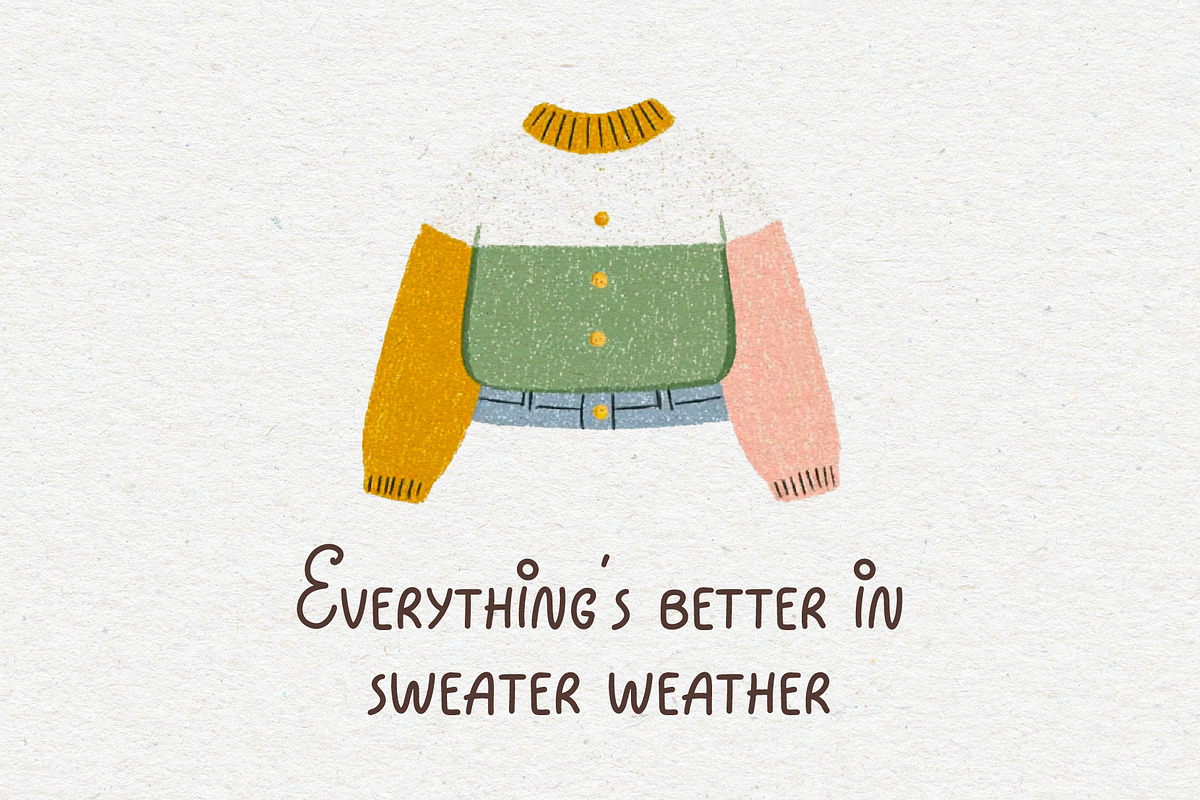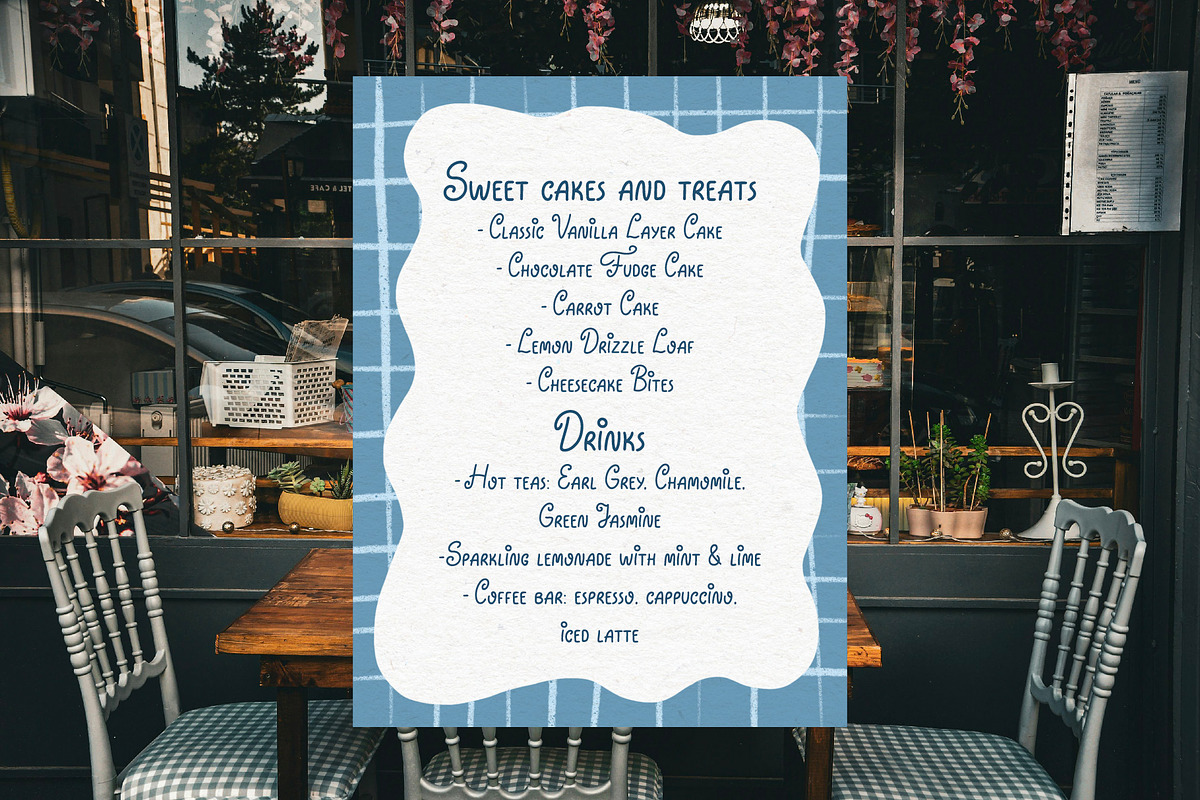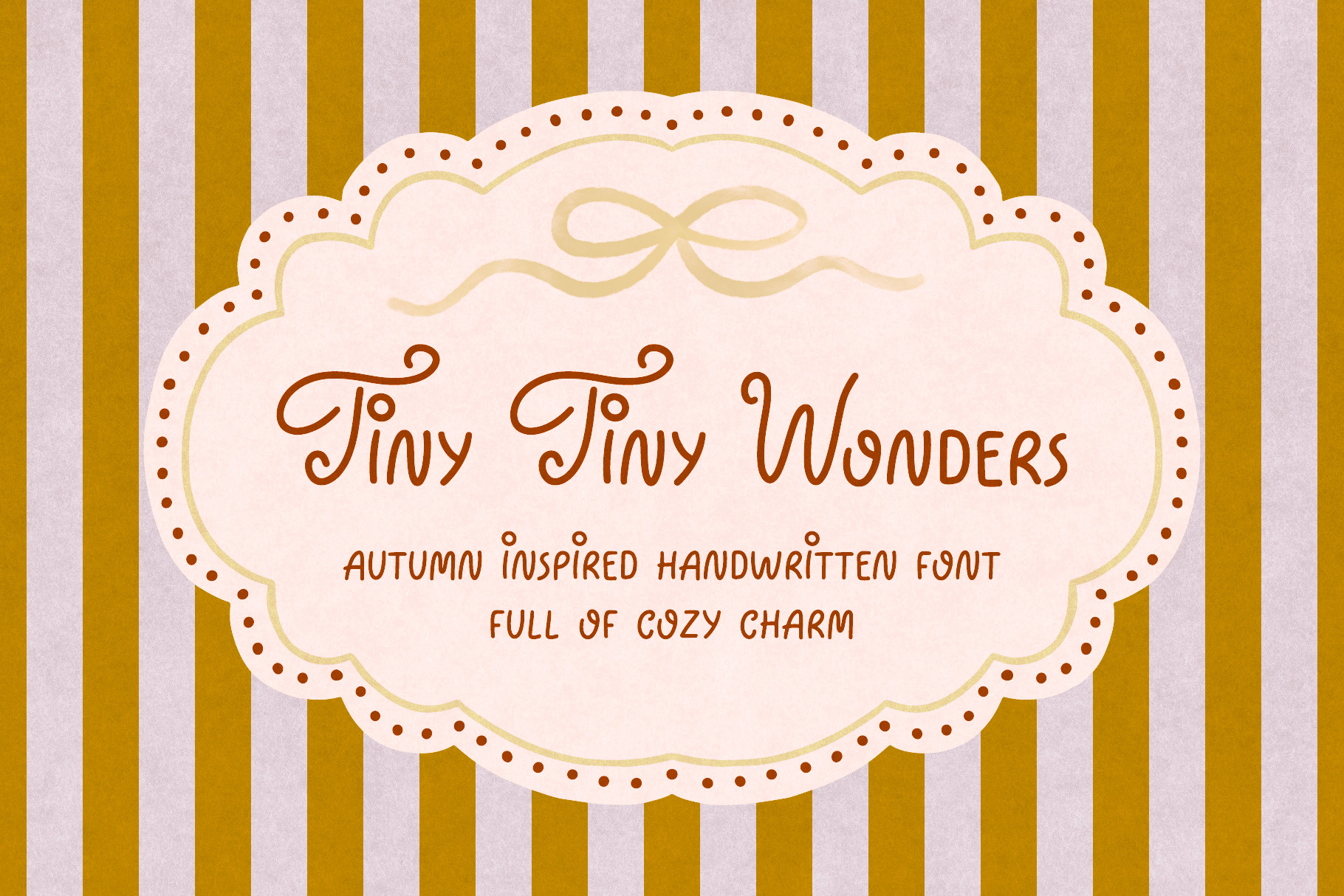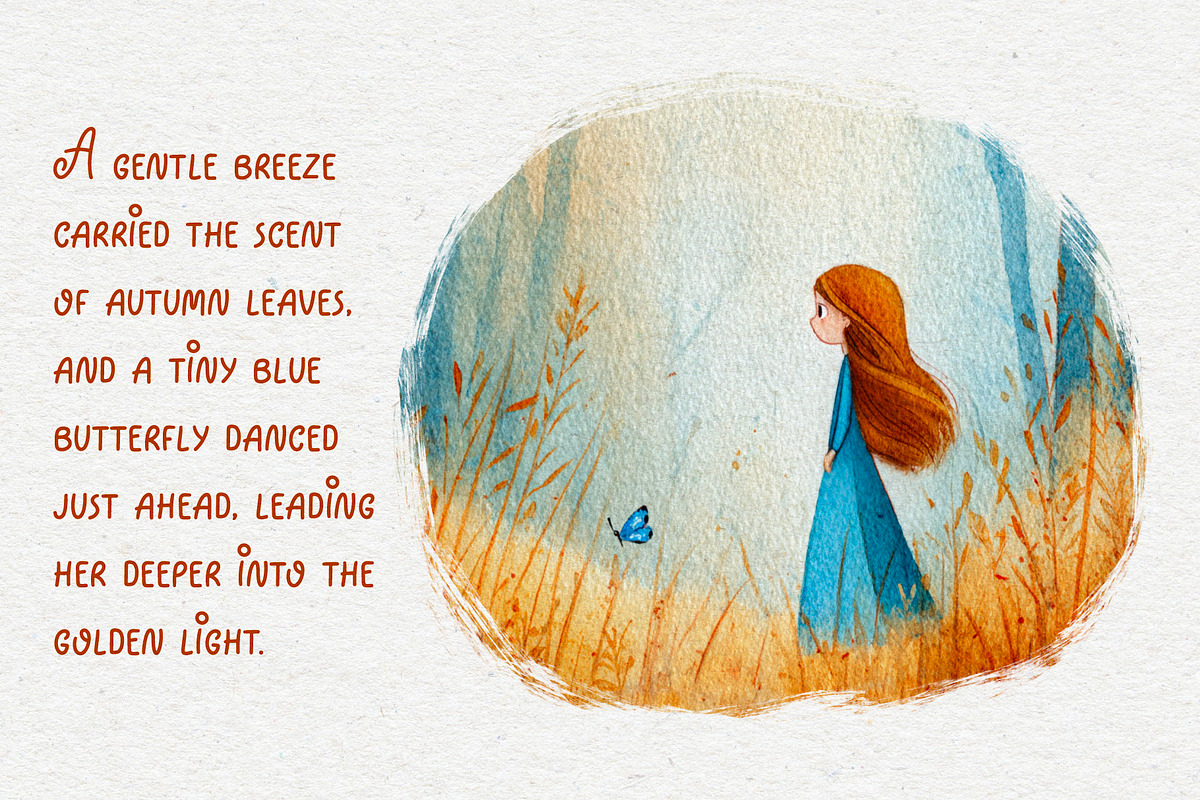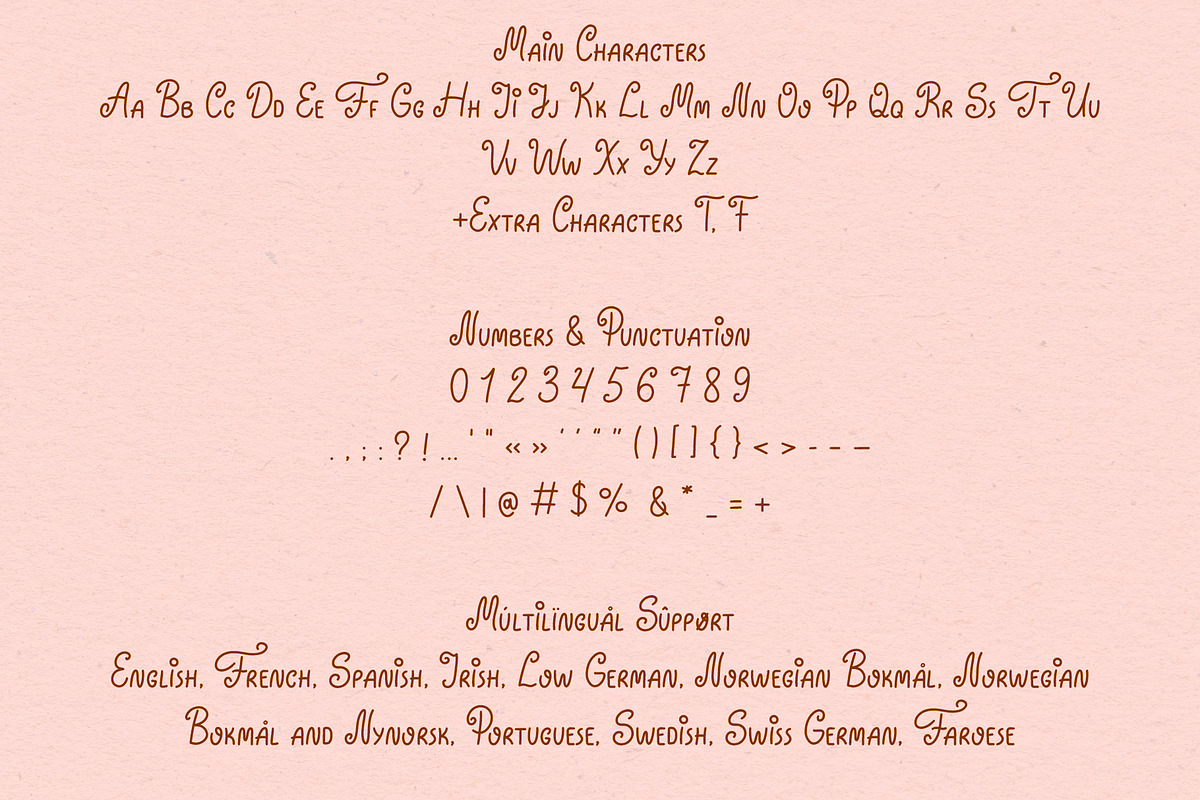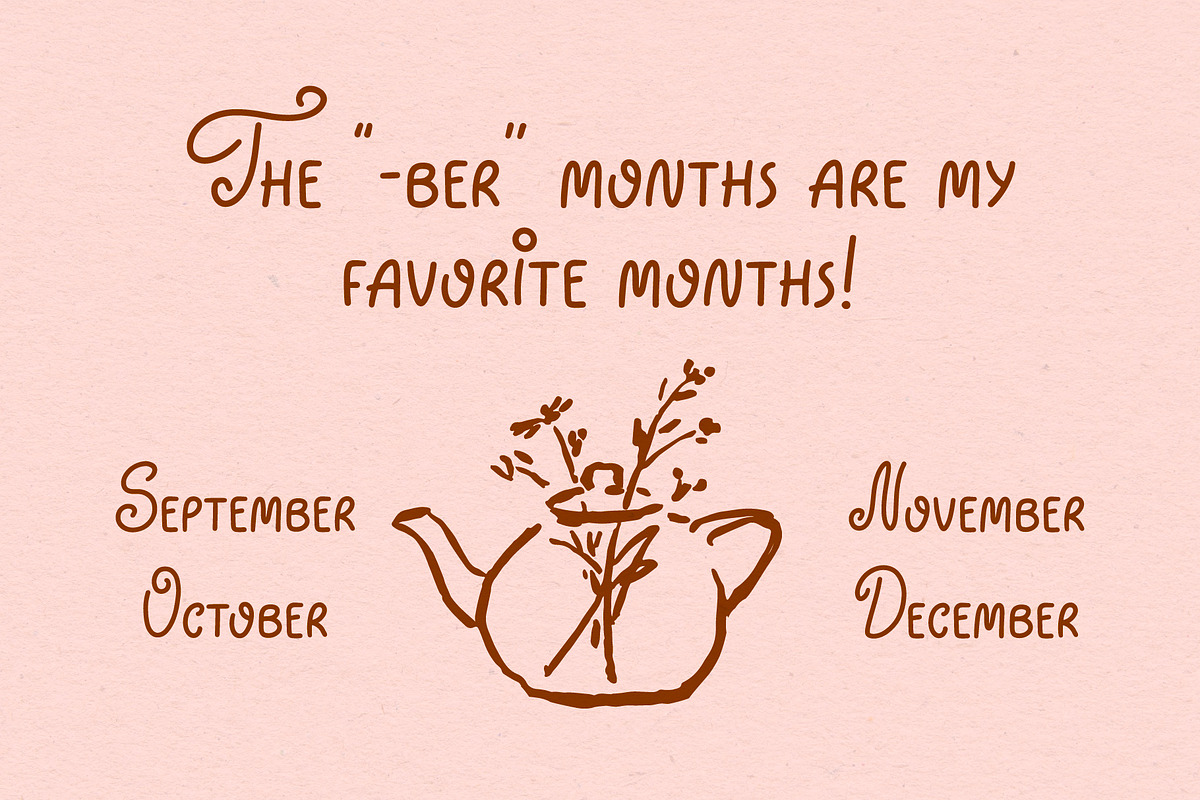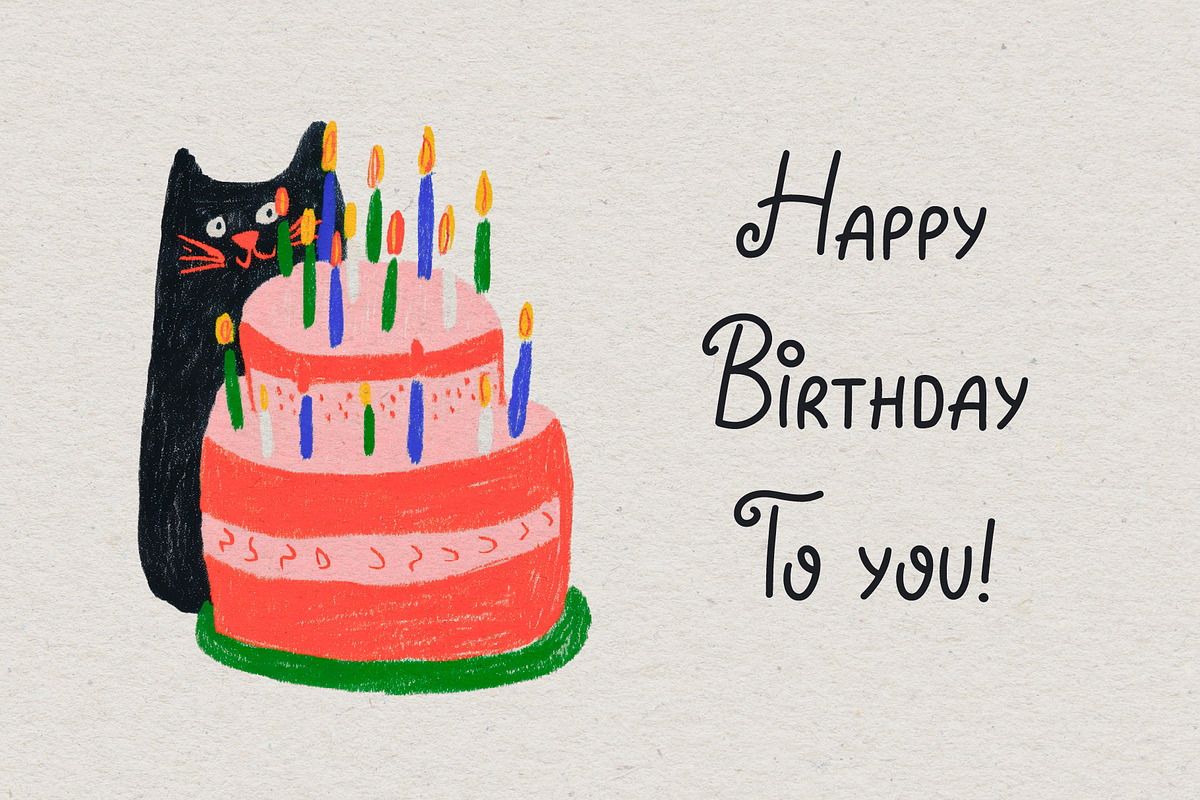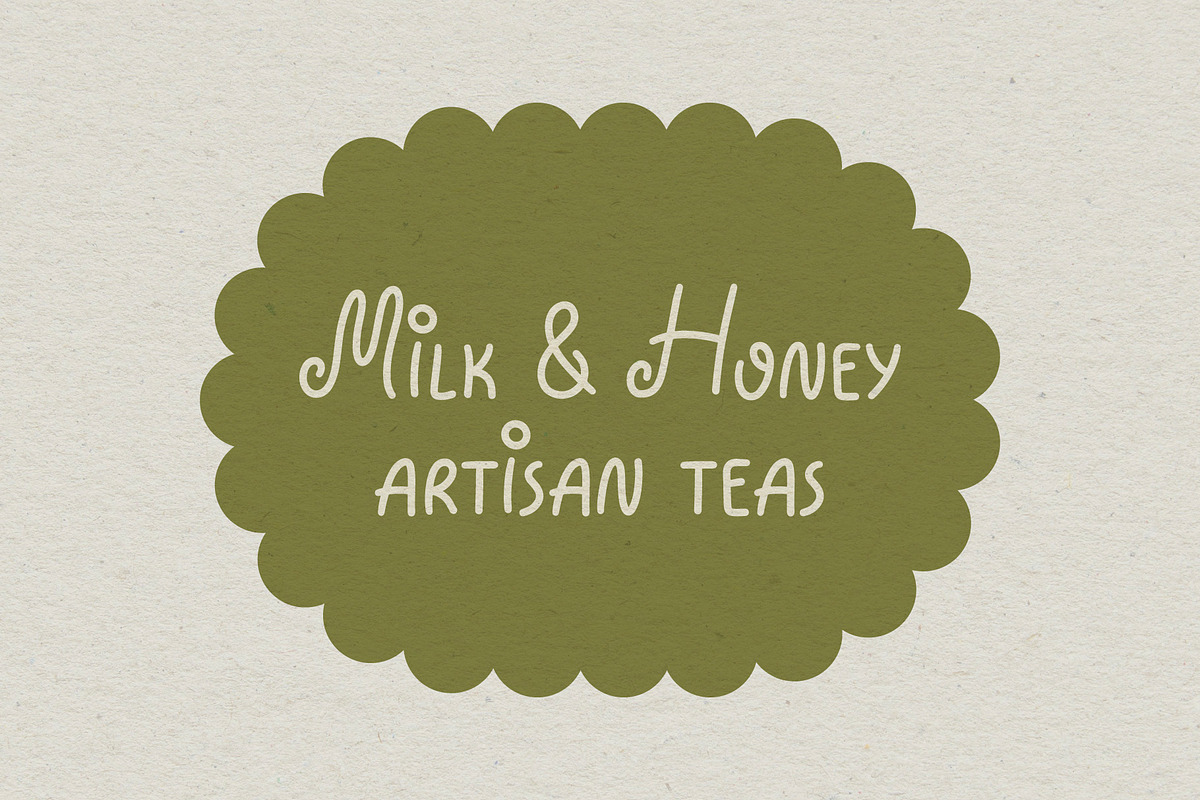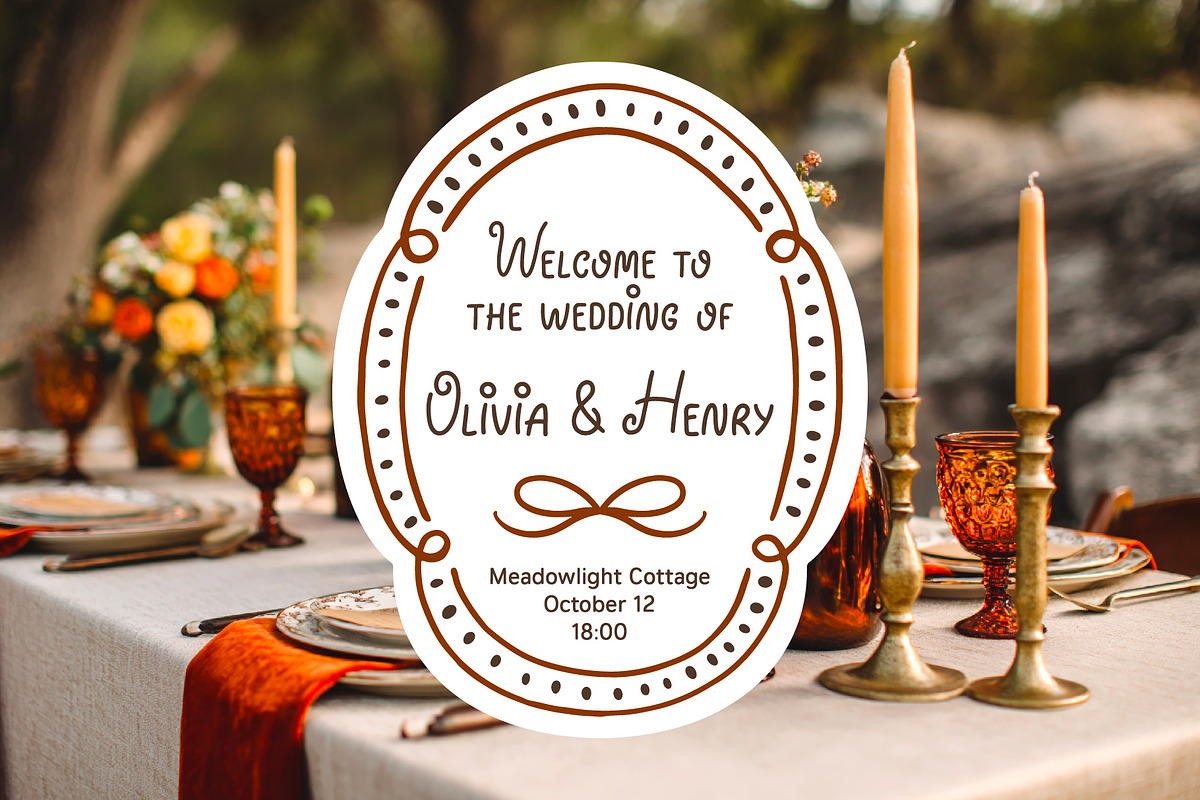
Tiny Wonders Handwritten Font
Tiny Wonders is a cute handwritten cozy font. It combines playfulness, coziness, and elegance all at once.
Multilingual support for Basic Latin and Western European languages (English, French, Spanish, Irish, Low German, Norwegian, Portuguese, Swedish, Swiss German, Faroese).